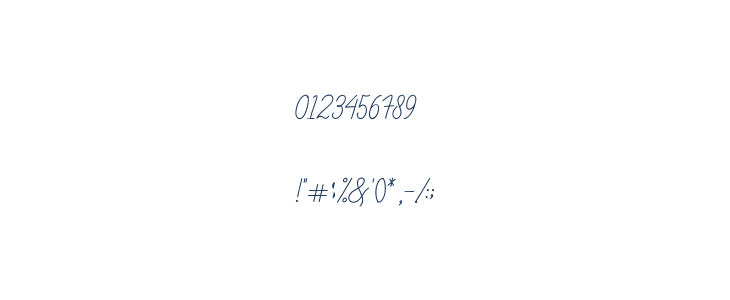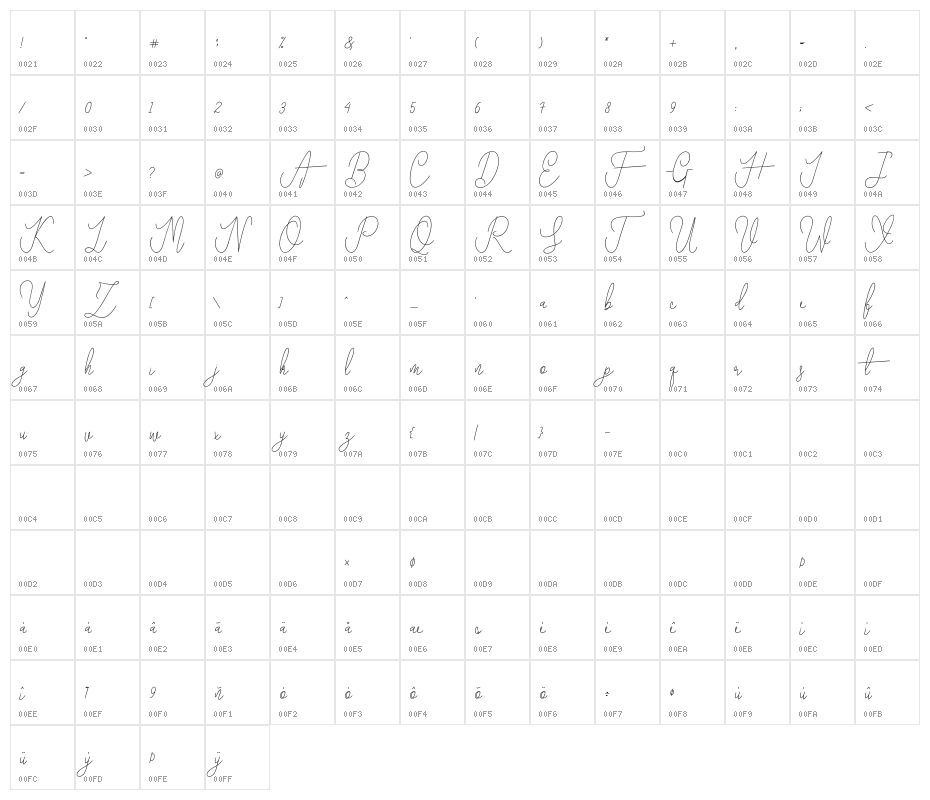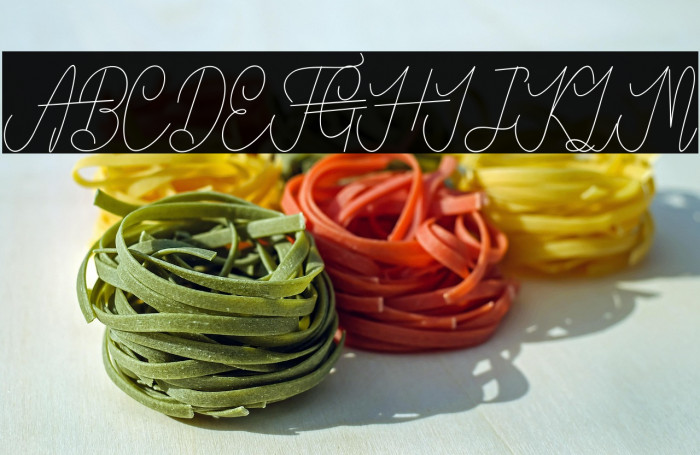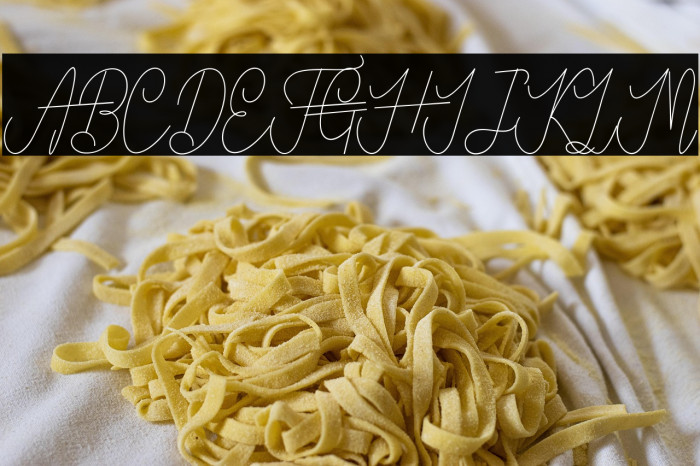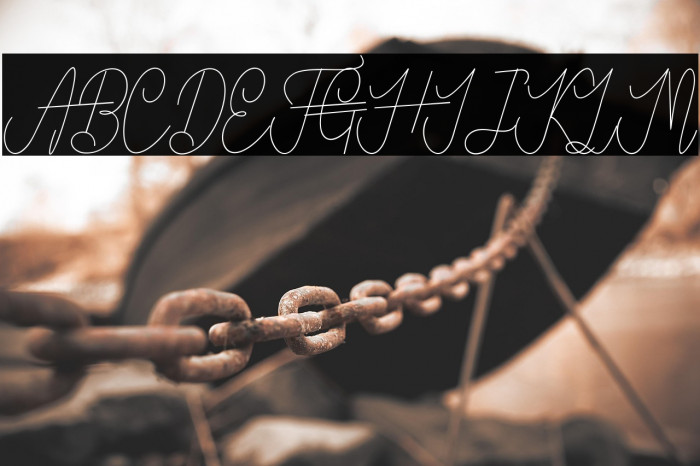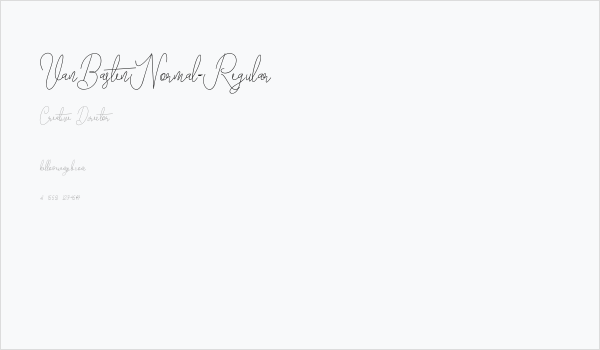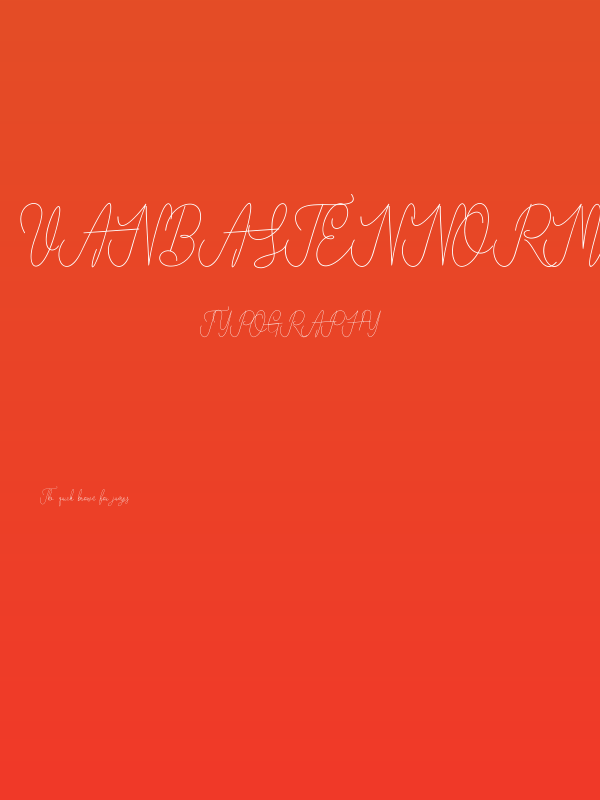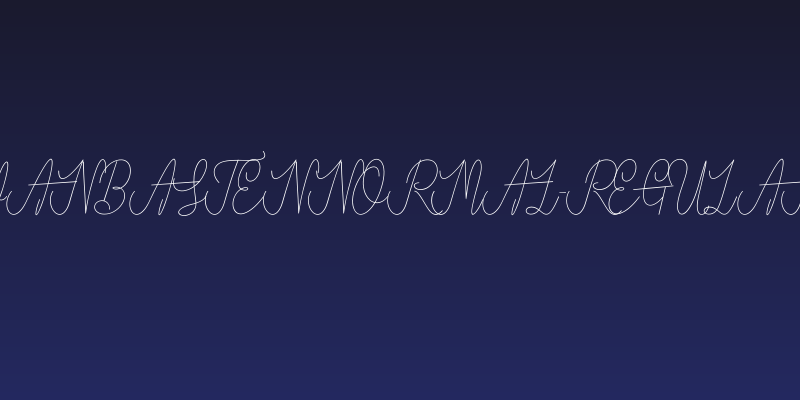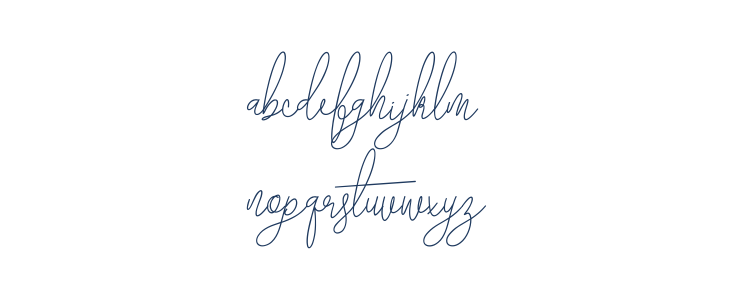
VanBastenNormal-Regular Font
VanBastenNormal-Regular Description
This elegant script font features a flowing, cursive style with delicate, interconnected strokes. The uppercase letters are characterized by their sweeping curves and loops, giving a sense of fluidity and grace. The lowercase letters maintain a consistent style, with gentle slants and smooth transitions between characters. The numerals are designed to match the overall aesthetic, with a refined and sophisticated appearance. Special characters are seamlessly integrated, maintaining the font's cohesive look. This font exudes a sense of elegance and sophistication, making it ideal for formal and decorative uses.
| Categories | Script |
| Overall Style | Elegant |
| Use Case | Logos, Invitations, Decorative headings |
| Proposed Projects | Ideal for wedding invitations, elegant branding, personal signatures, and decorative headings. |